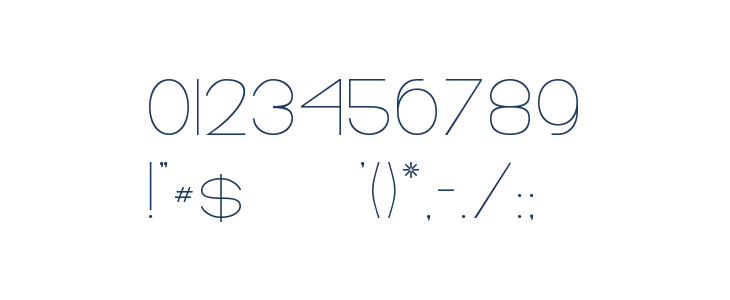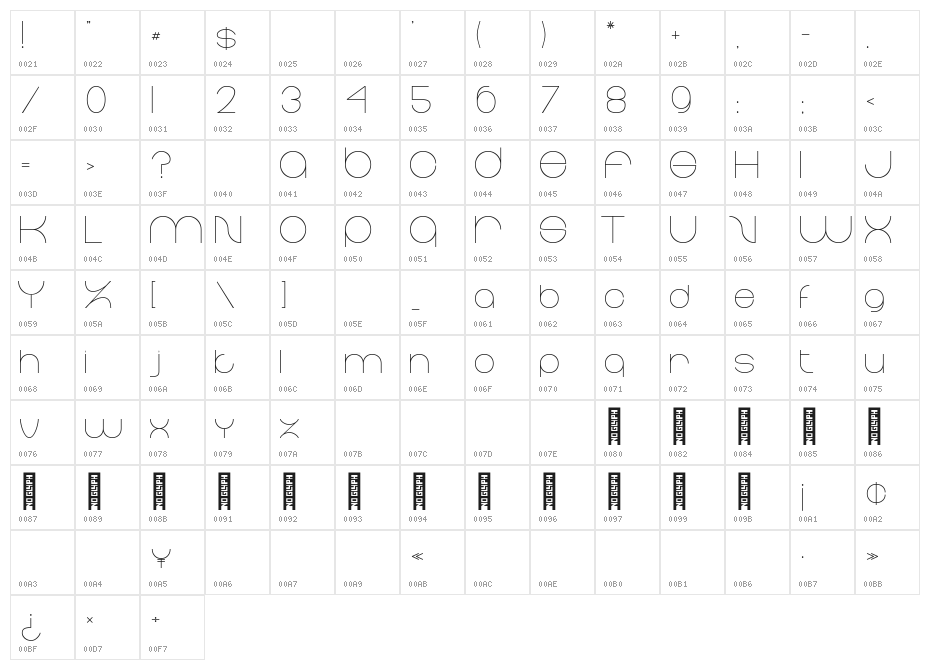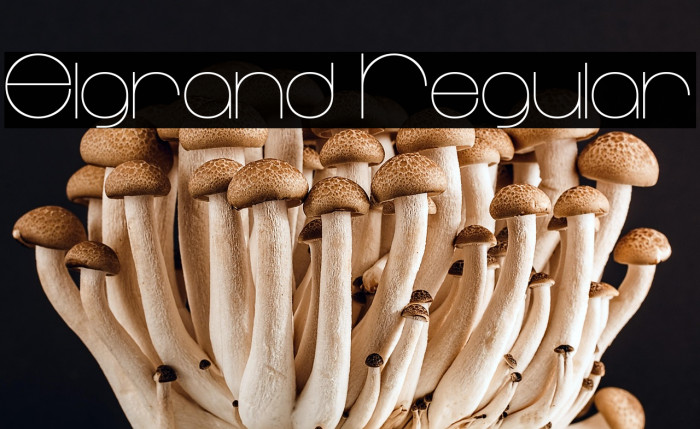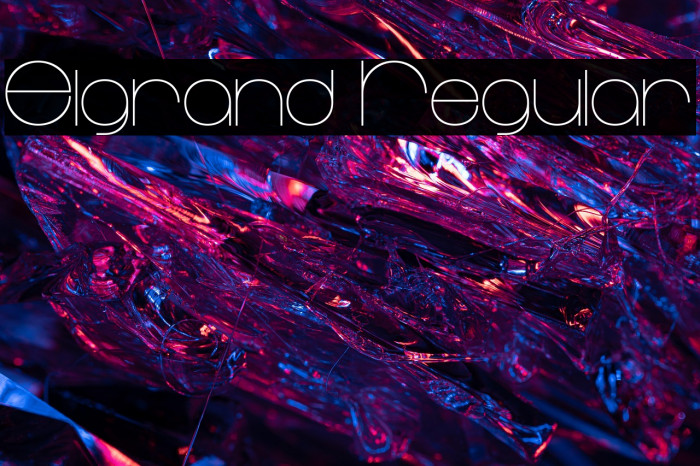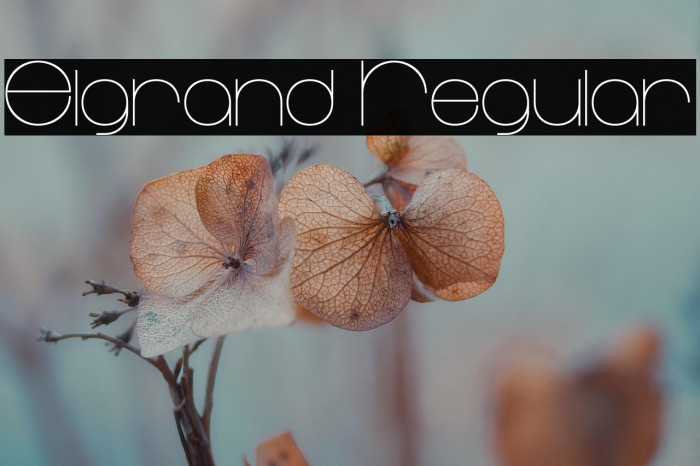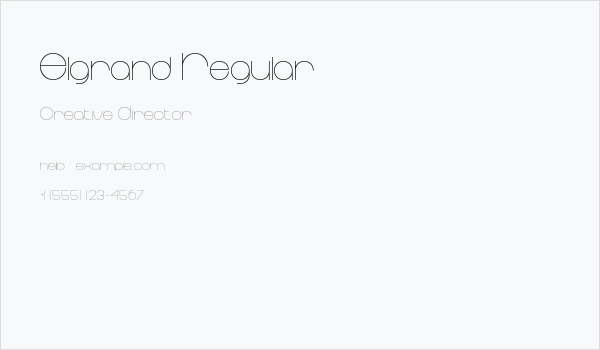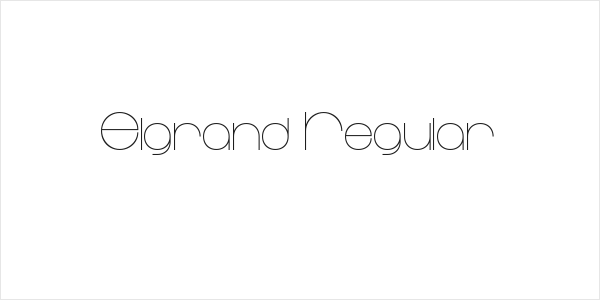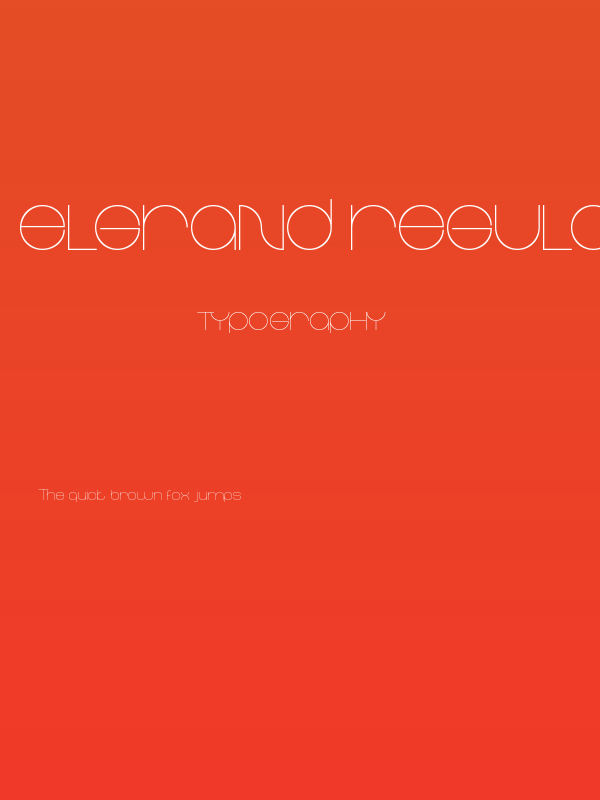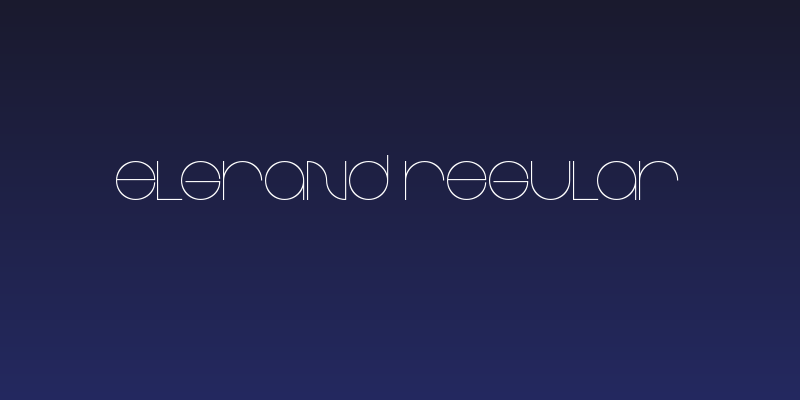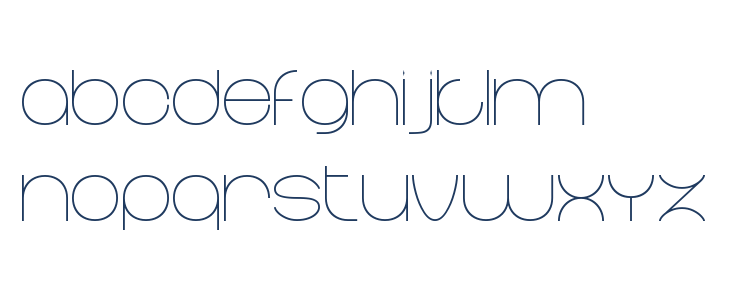
Elgrand Regular Font
Elgrand Regular Description
This font features a modern and minimalist design with a geometric structure. The characters are composed of thin, uniform lines that create a clean and elegant appearance. The uppercase and lowercase letters maintain a consistent style, with rounded edges and a balanced proportion. The numerals and special characters follow the same design principles, ensuring a cohesive look across all elements. This font's simplicity and clarity make it highly versatile for various design applications.
Use CaseHeadlines, Logos, Branding
Proposed ProjectsIdeal for branding, advertising, and editorial design projects where a sleek and contemporary look is desired.